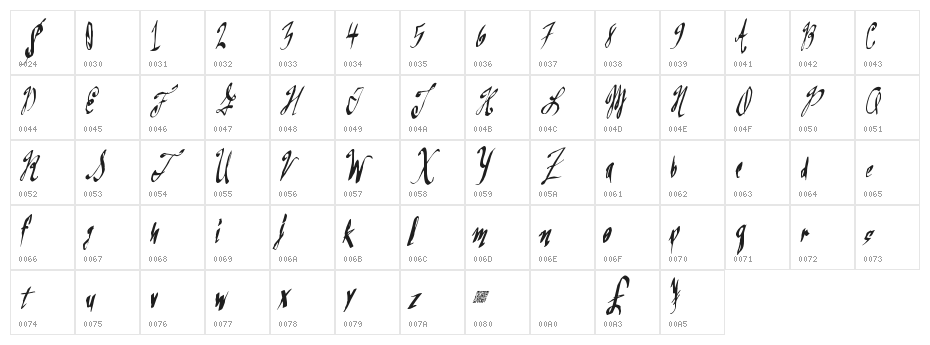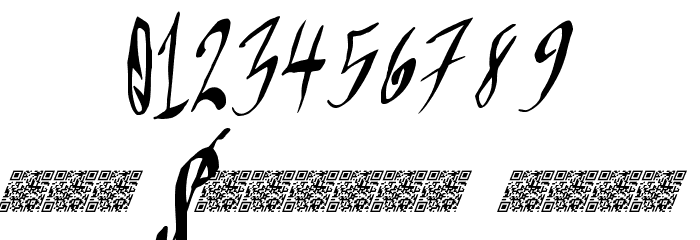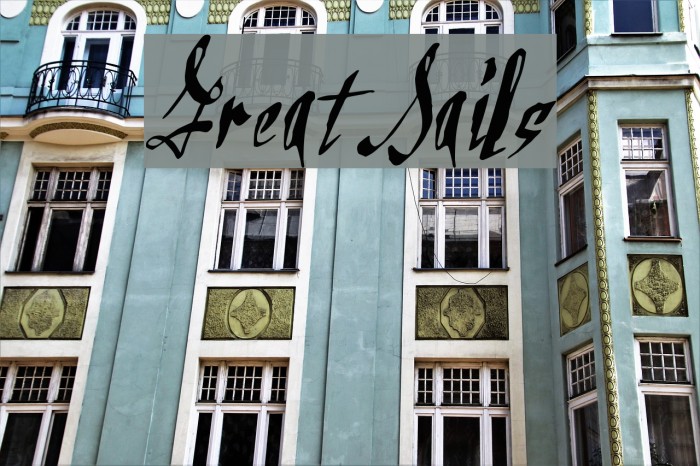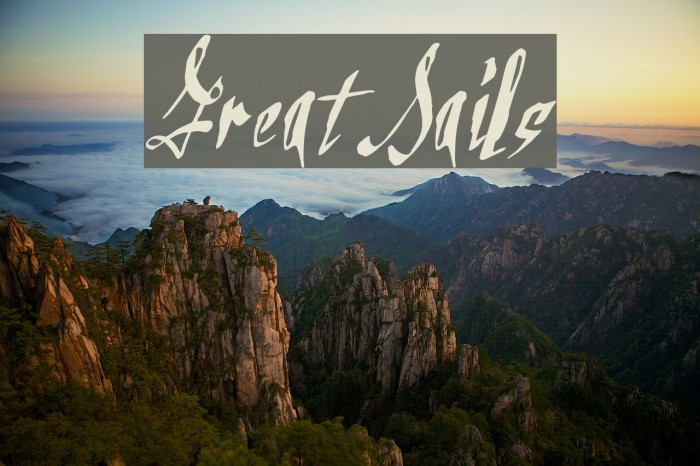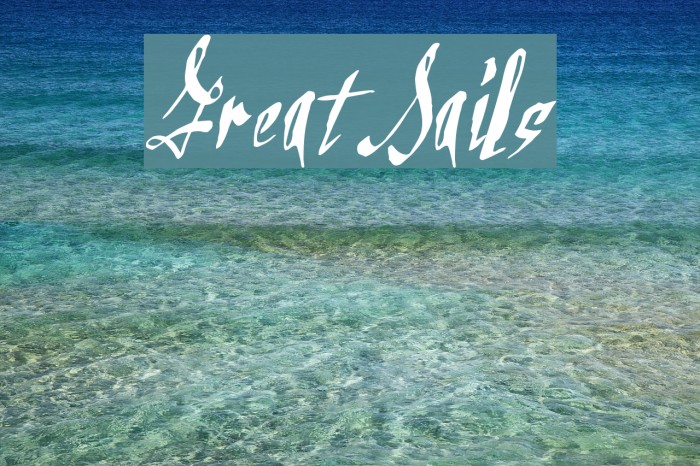
GreatSails Font
GreatSails Description
This font features an expressive and dynamic script style, characterized by its flowing and interconnected letterforms. The strokes are bold and dramatic, with varying thickness that adds a sense of movement and energy. The uppercase letters are particularly elaborate, with intricate loops and swirls that give the font a decorative flair. The lowercase letters maintain a cohesive style, complementing the uppercase with their own unique curves and angles. Numbers and special characters are designed to match the overall aesthetic, ensuring consistency across all text elements. This font is ideal for projects that require a touch of elegance and sophistication, while still maintaining a sense of modernity.